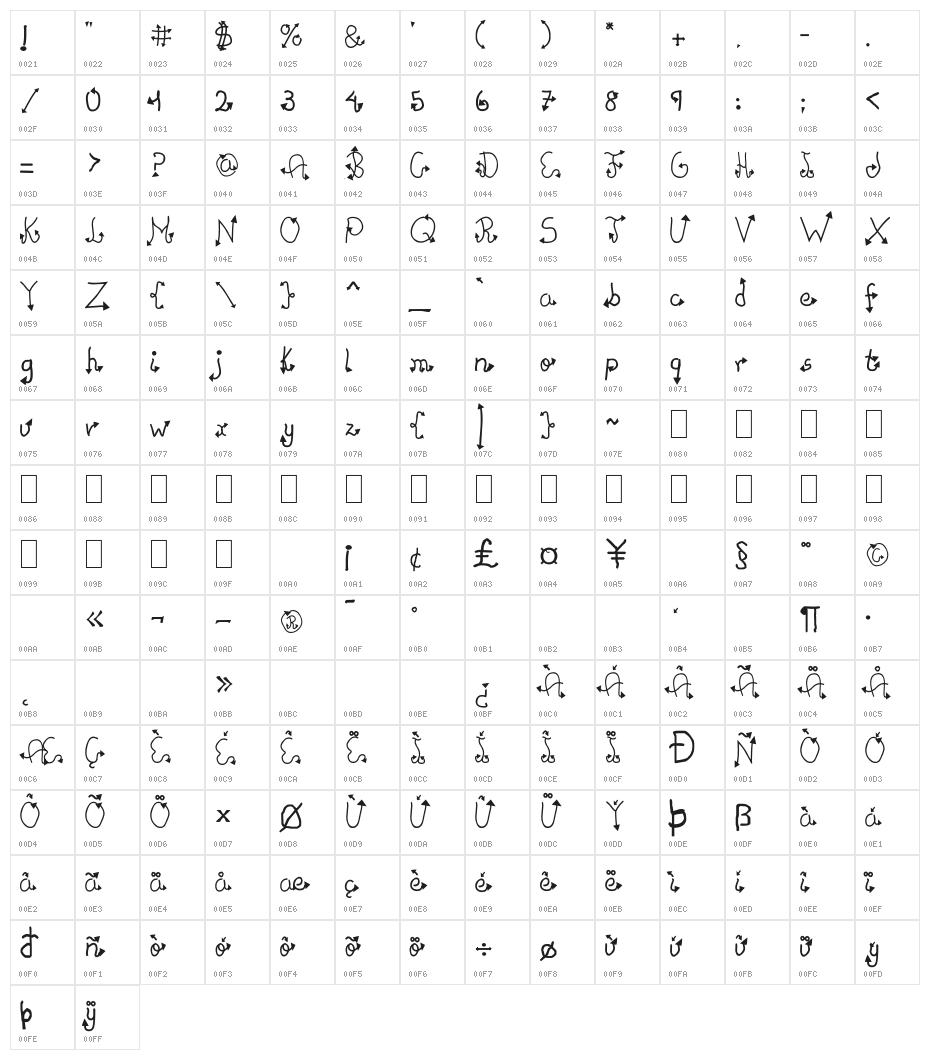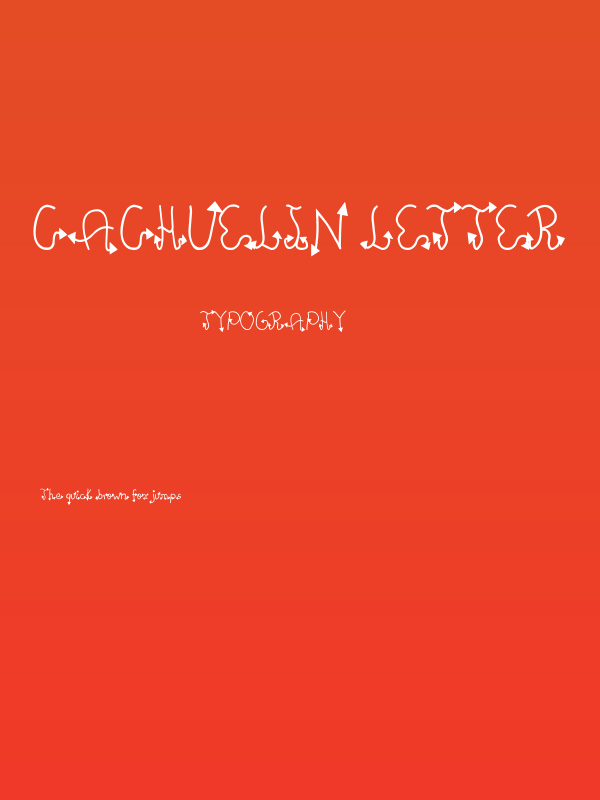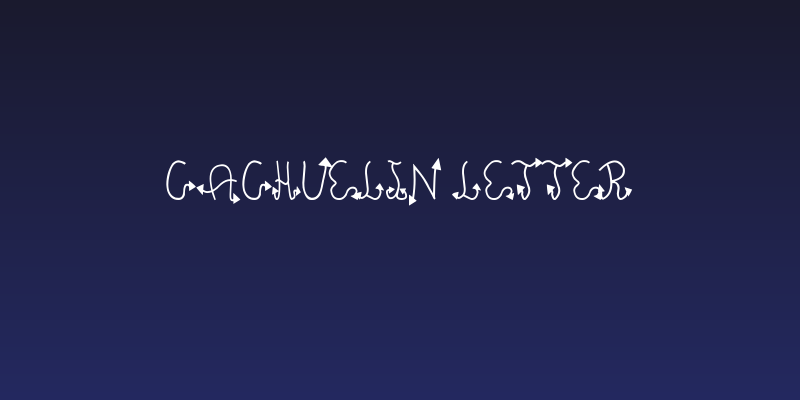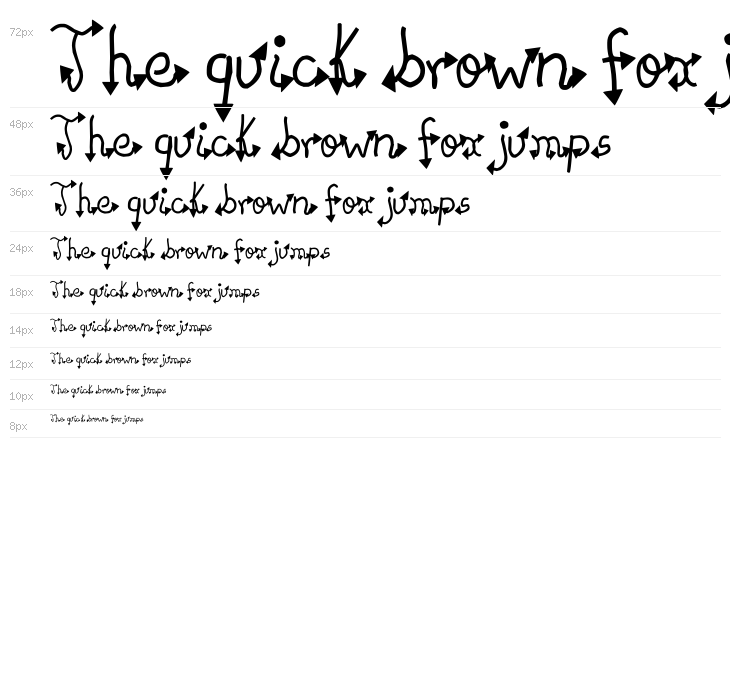
Cachuelin Letter Font
Cachuelin Letter Description
This font features a unique and playful design with arrows integrated into each character, creating a dynamic and whimsical appearance. The letters have a bold and artistic style, with varying stroke thickness that adds to their visual interest. The uppercase and lowercase letters maintain a consistent theme, while the numbers and special characters follow the same creative pattern. The overall look is both decorative and modern, making it suitable for projects that require a distinctive and eye-catching typeface.
| Use Case | Logos, Posters, Creative Branding |
| Proposed Projects | Ideal for creative projects such as posters, logos, and branding materials that require a unique and artistic touch. |